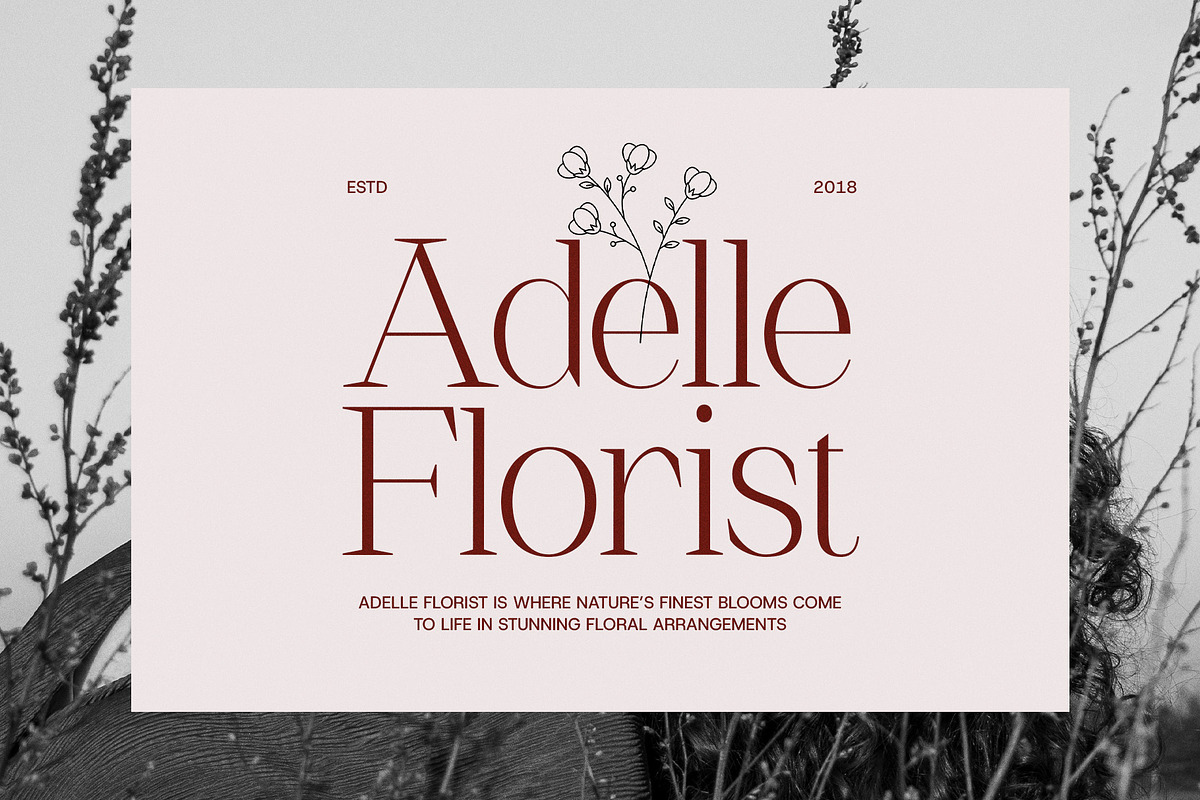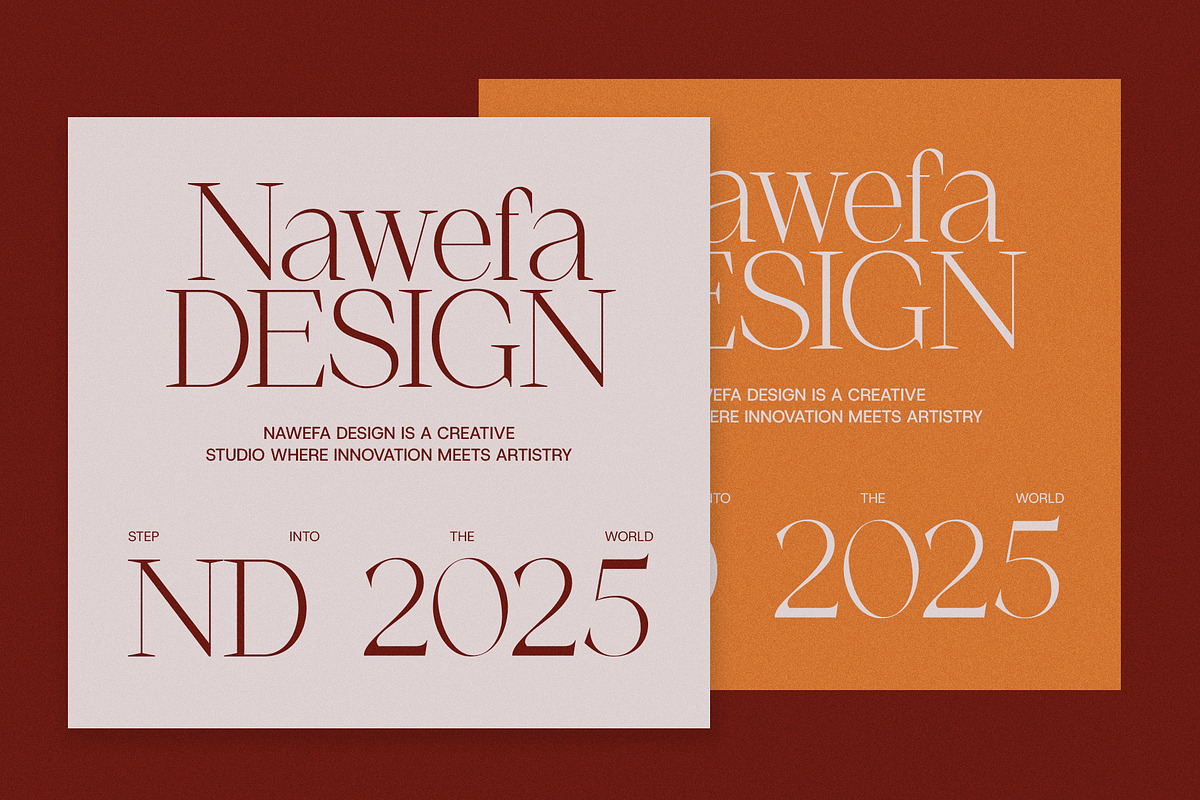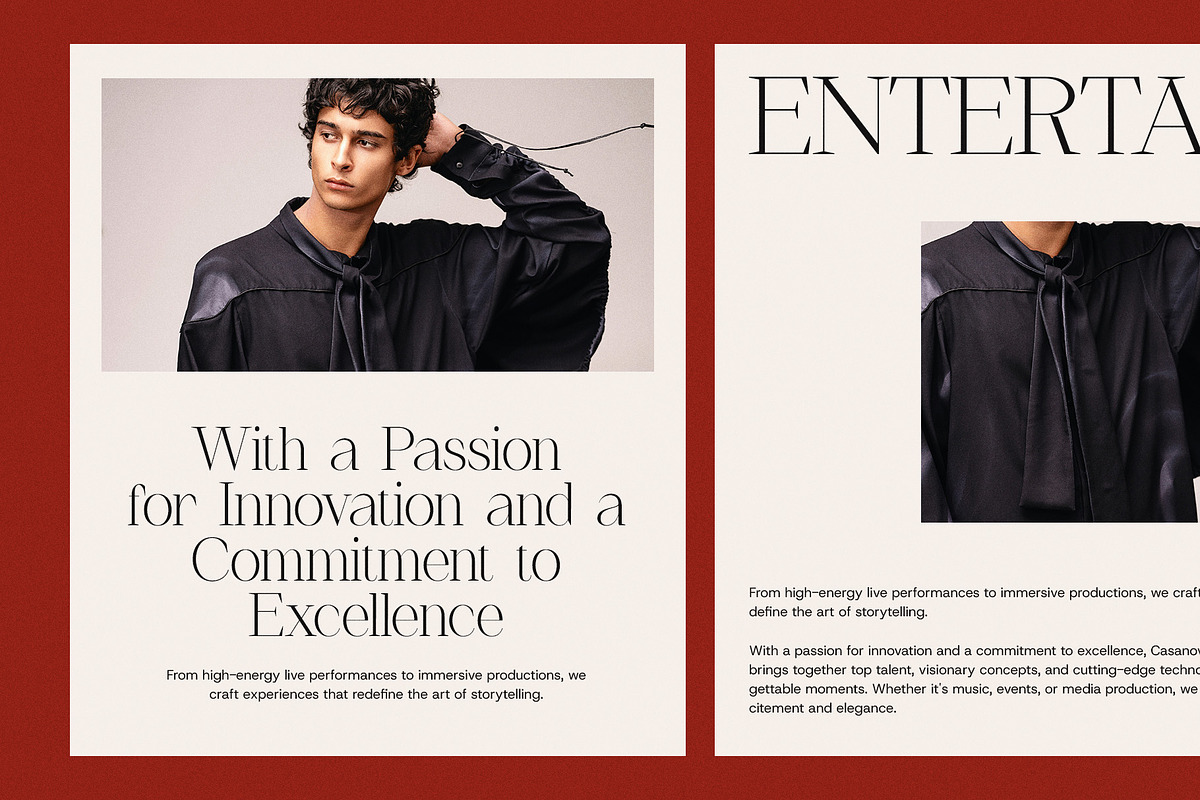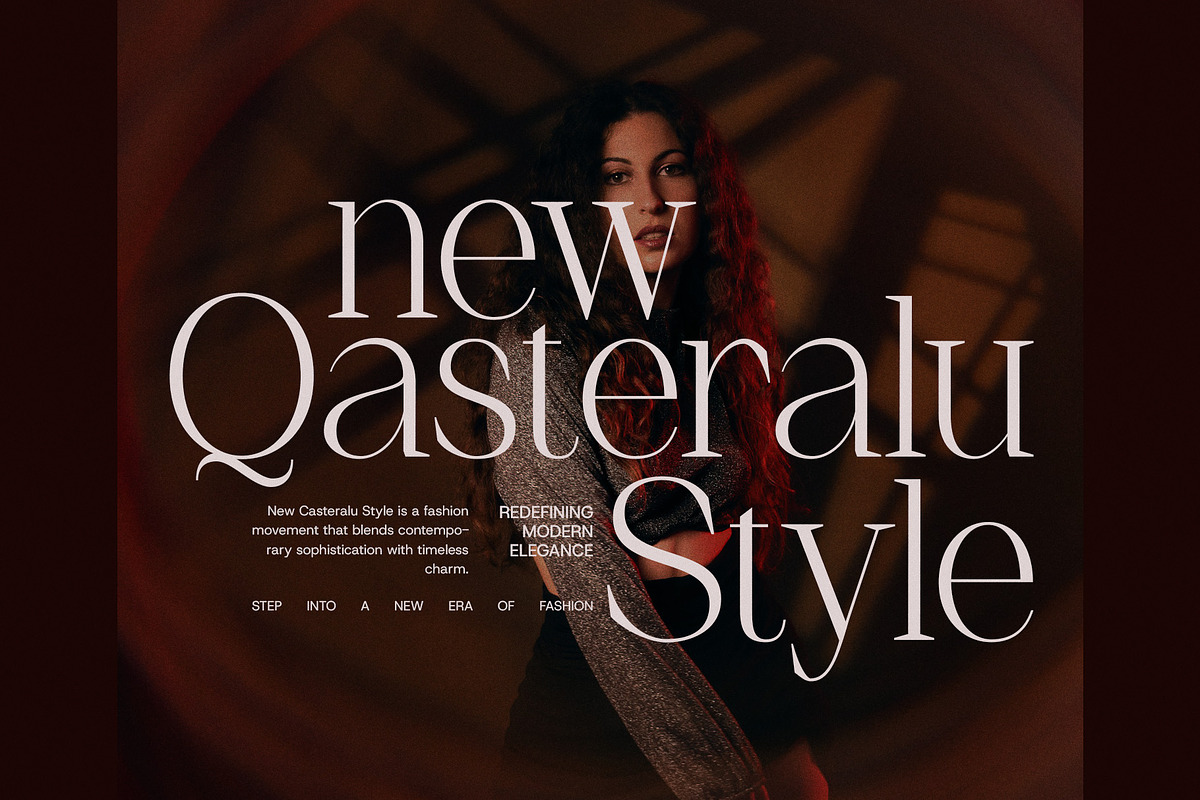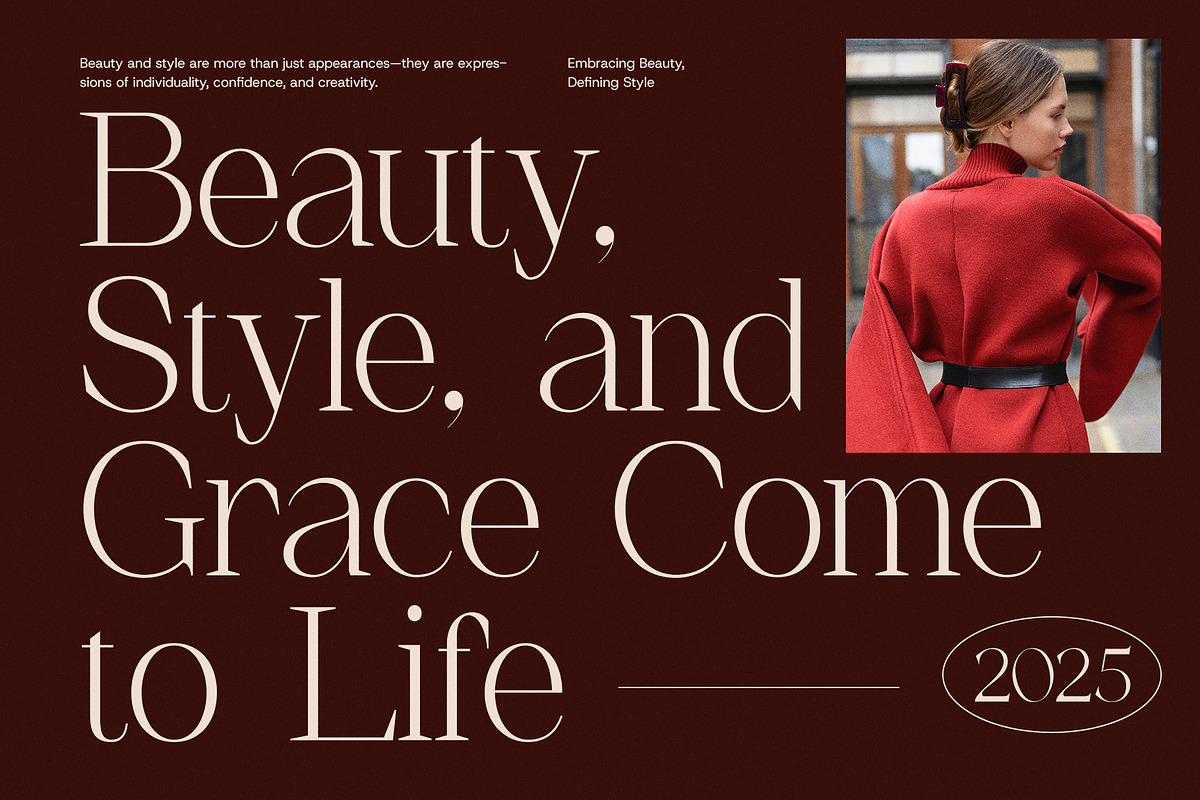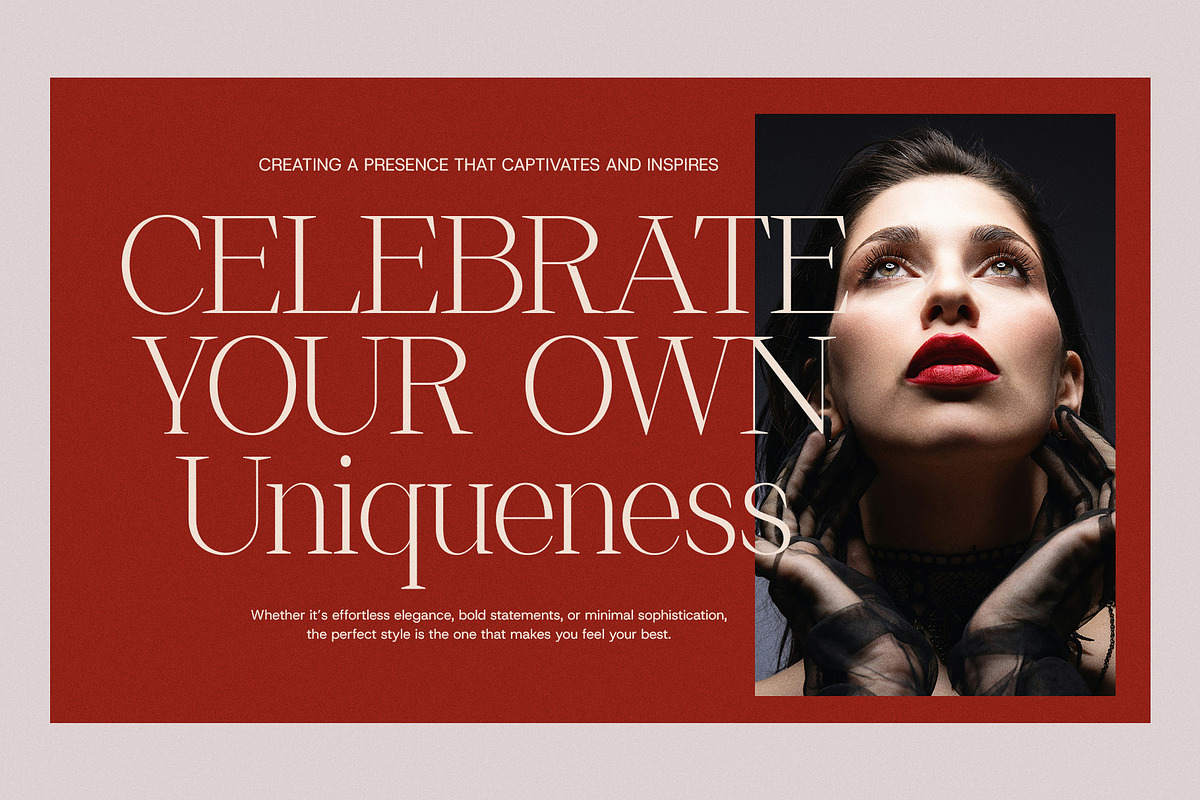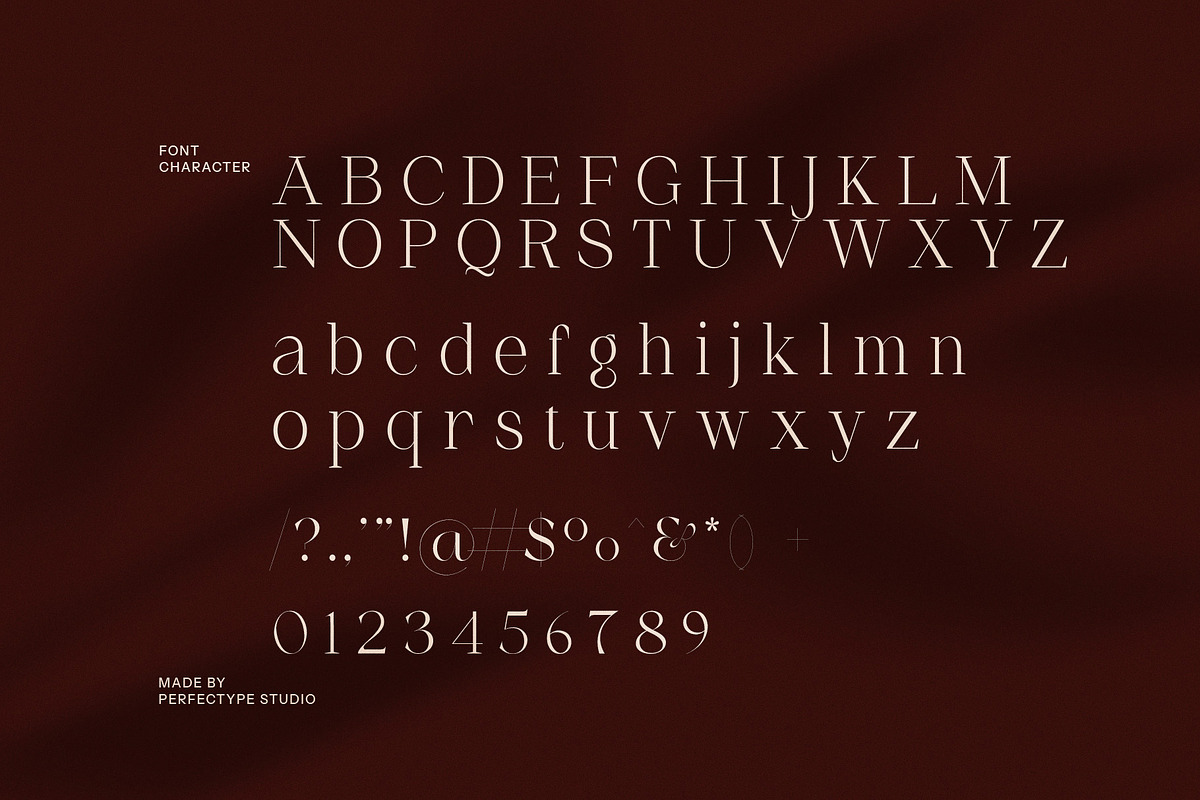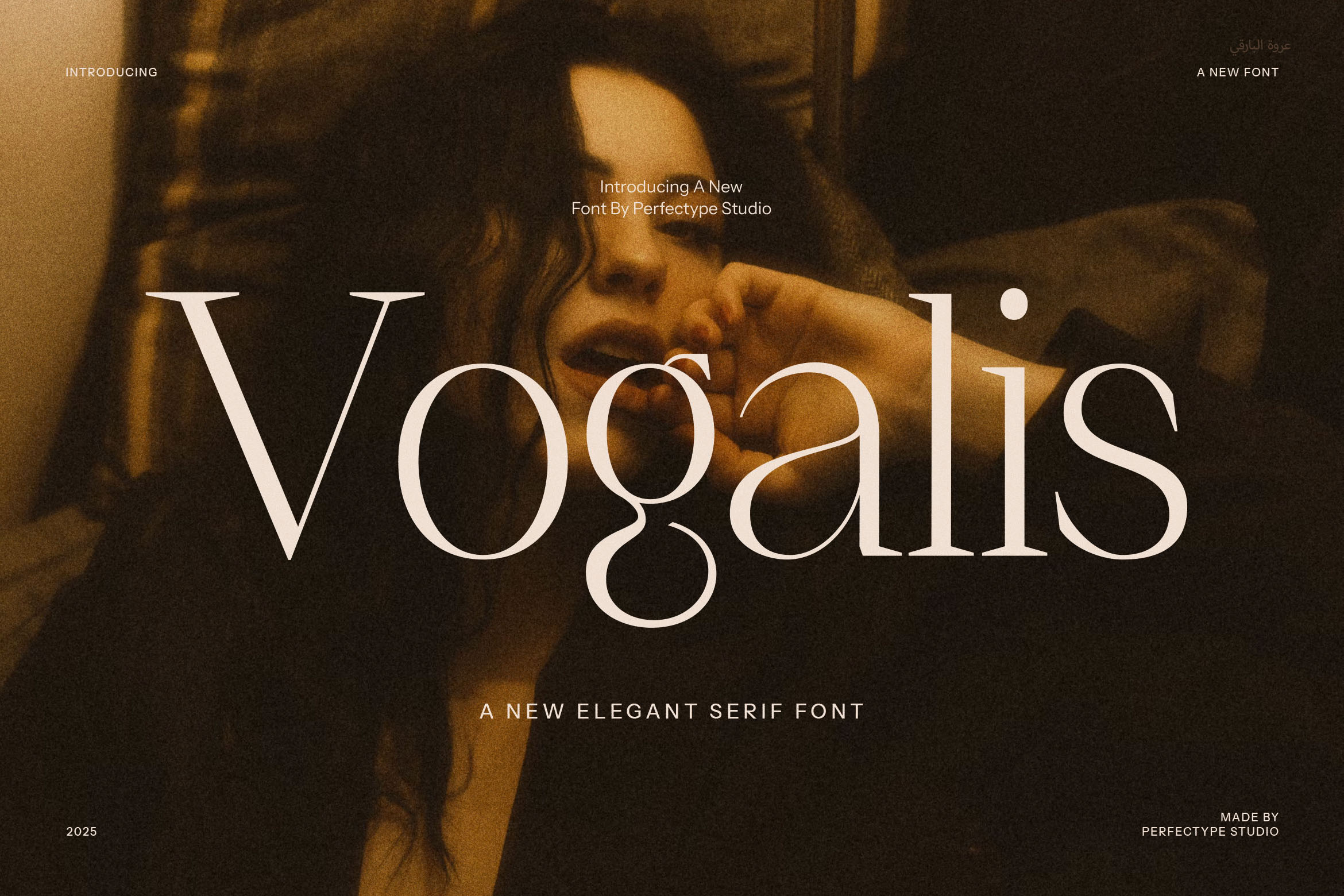
Vogalis Minimalist Serif Font
Vogalis Minimalist Serif Font is a refined and modern typeface that perfectly blends elegance with simplicity. Its minimalist design offers a fresh and clean aesthetic, making it ideal for creating impactful, contemporary visuals. The font’s unique ligatures and alternate forms allow for creative flexibility, enabling designers to craft custom typographic solutions that stand out in any project.
Designed with versatility in mind, Vogalis is a perfect choice for high-end branding, stylish logos, and modern websites. Whether you're designing for an upscale boutique, a sleek food brand, or a chic magazine layout, Vogalis’ delicate serifs and balanced letterforms bring a sense of sophistication and clarity to any design. Its minimalist style ensures that the font remains timeless, offering a sophisticated, yet subtle look for both digital and print projects.
From product packaging to advertisements, Vogalis delivers excellent readability while maintaining a premium and polished feel. The font's clean lines and thoughtful design allow it to shine in various applications, whether used for bold headlines or elegant body text. Its unique alternates offer an added layer of creative expression, giving your designs a distinctive touch.
Vogalis Minimalist Serif Font is the ideal typeface for any project that calls for an elegant, modern, and versatile look. Perfect for luxury brands, creative agencies, and modern businesses, it elevates your design with its subtle beauty and refined simplicity.